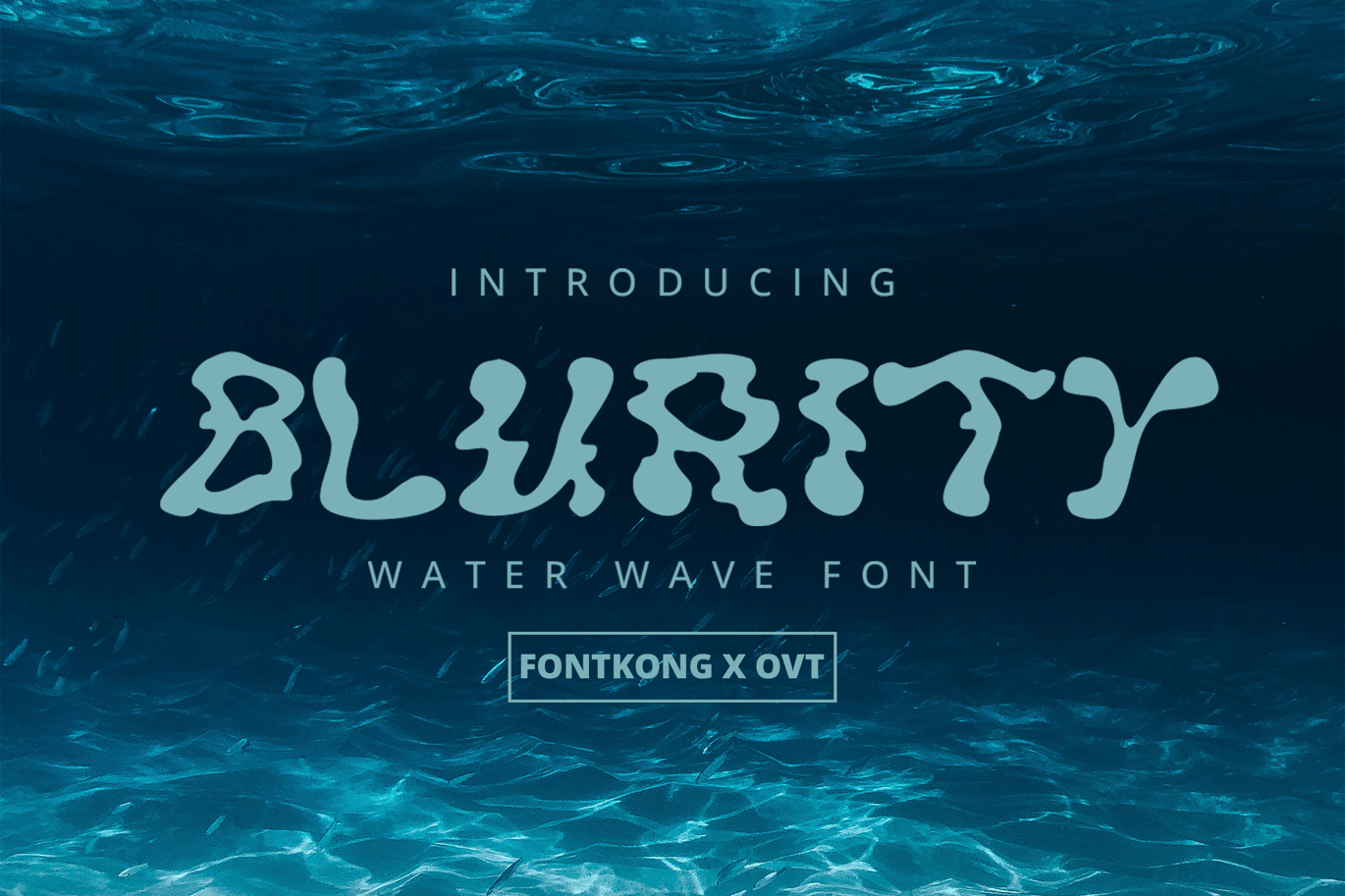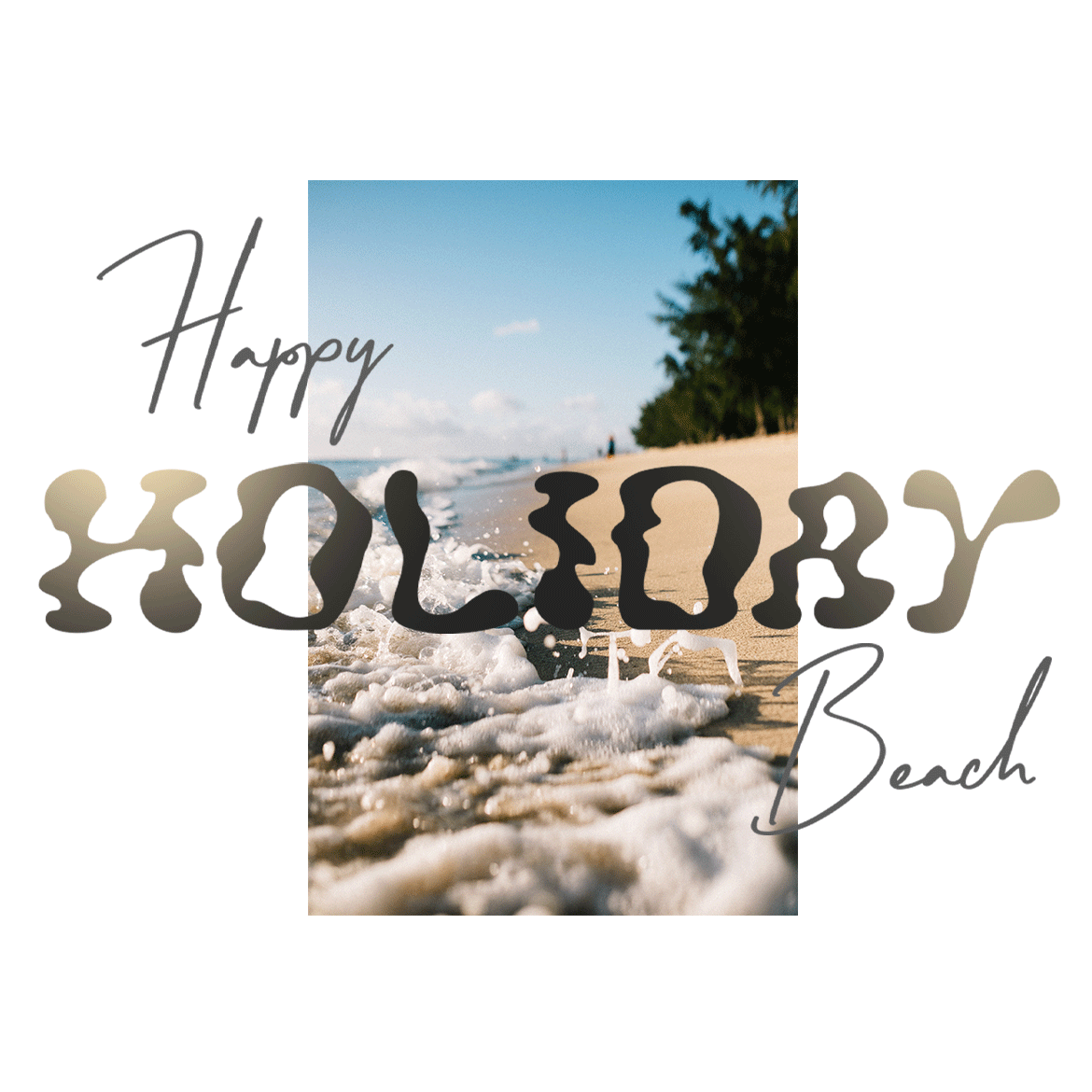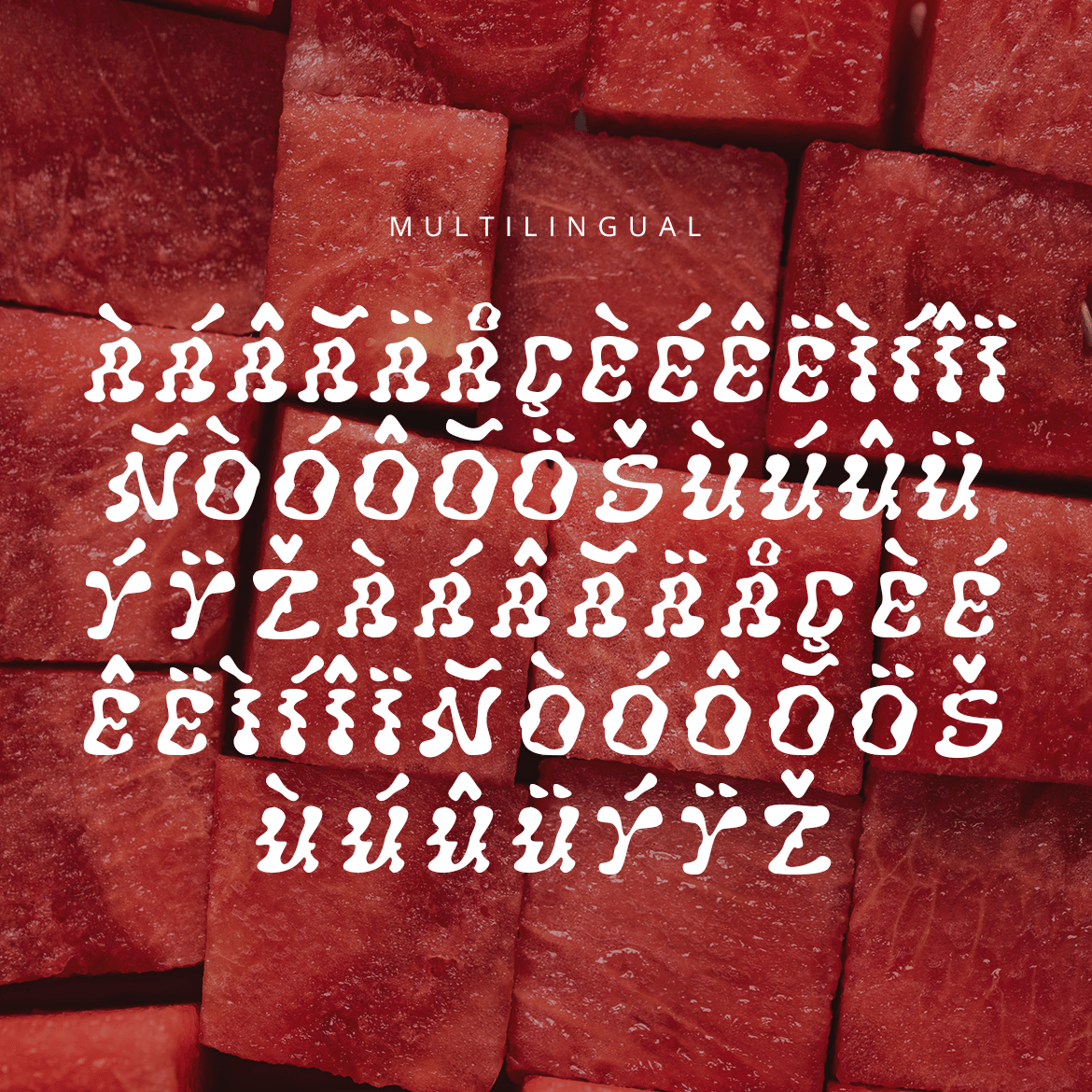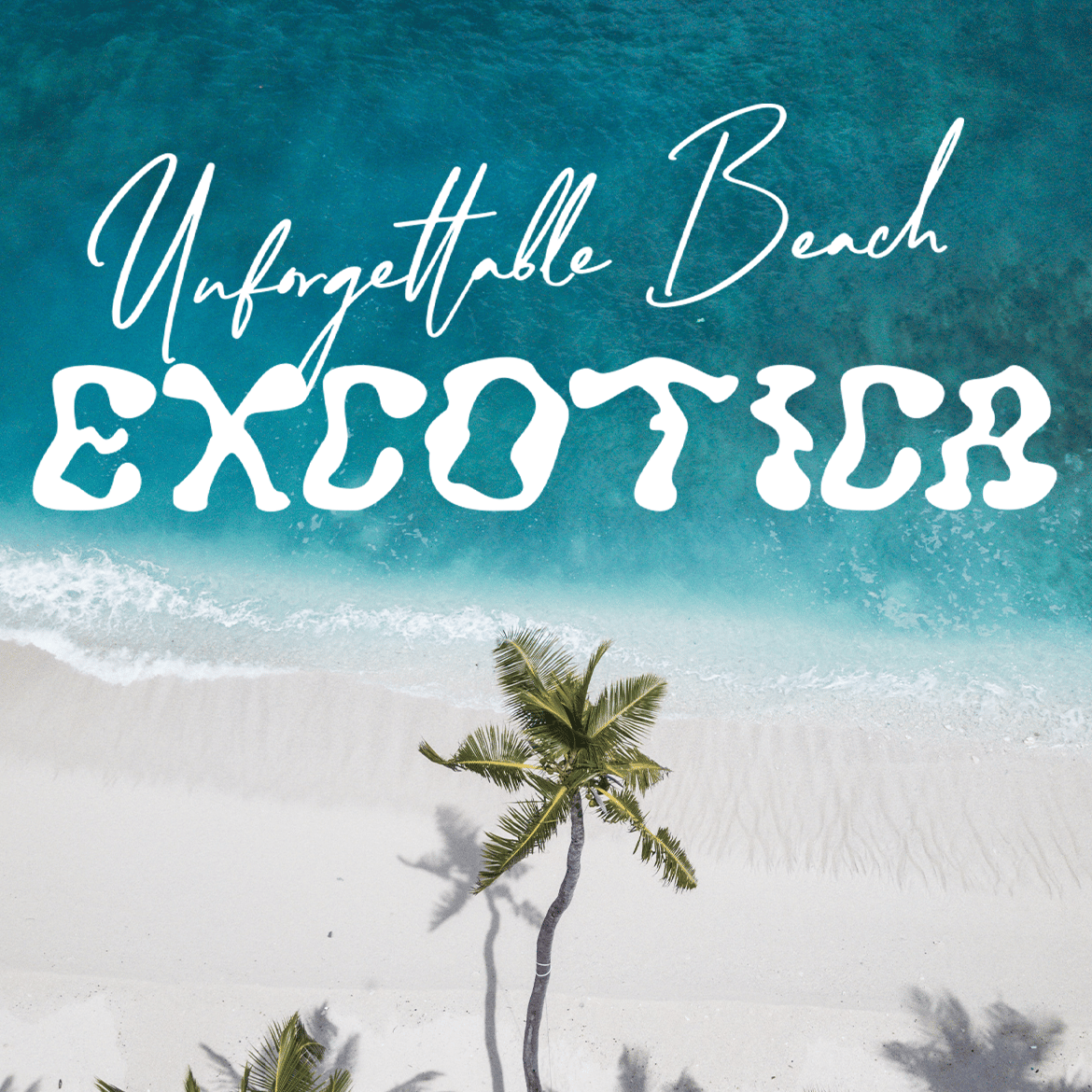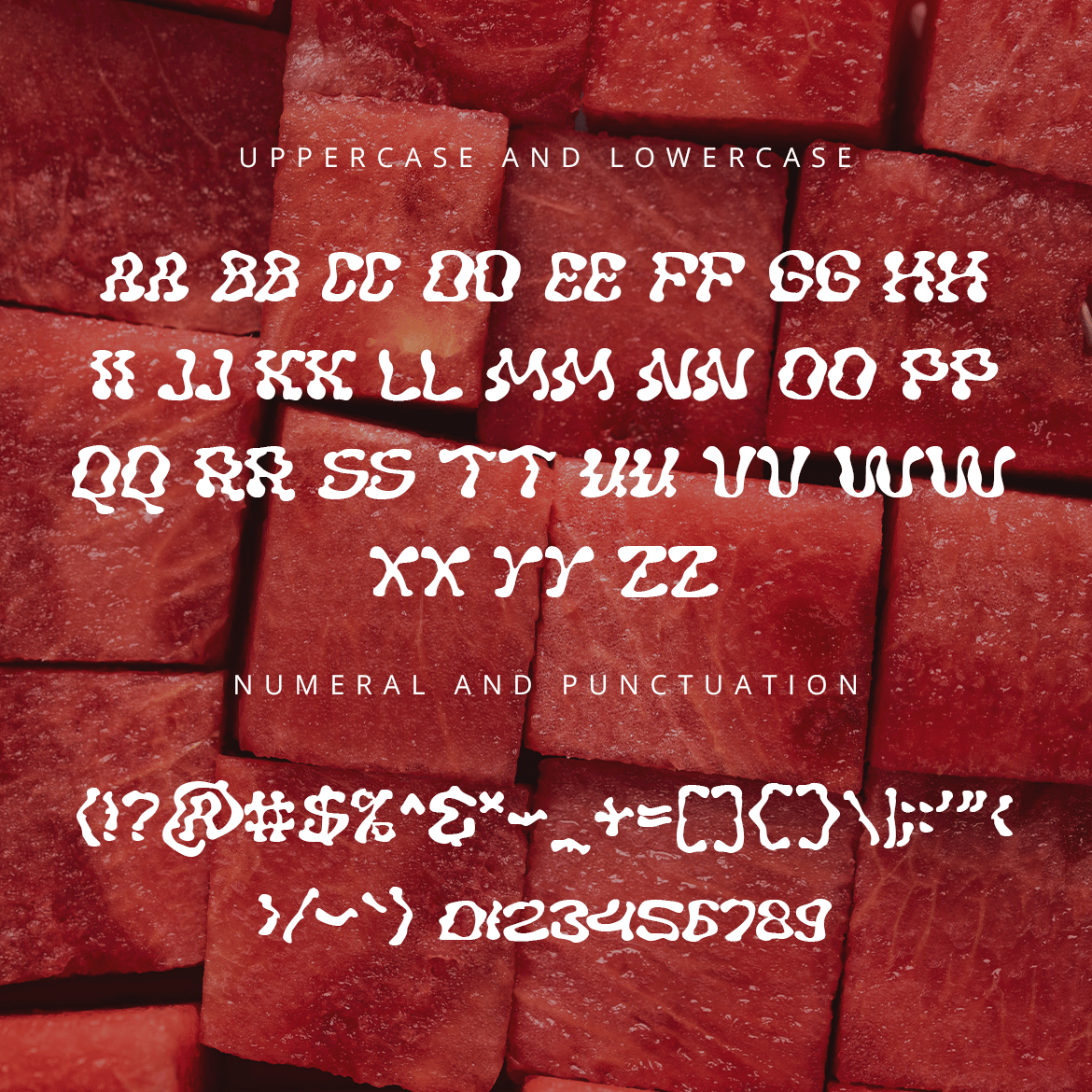
Blurity – A Water Wave Font
Blurity is a unique and captivating water wave font that brings a refreshing and dynamic feel to your design projects. With its fluid and flowing letterforms, Blurity is perfect for beach-themed designs, event posters, creative branding, and summer promotions. This font captures the essence of water’s movement, adding a sense of motion and liveliness to your work.
Designed to mimic the gentle undulations of water waves, Blurity offers a distinctive look that stands out in any context. Its playful and artistic style makes it ideal for headlines and display text, ensuring your message is conveyed with creativity and flair. The font’s versatile nature allows it to be used in various design applications, from digital graphics to printed materials.
Dive into the world of creative typography with Blurity, a font that combines the beauty of water waves with modern design sensibilities. Its unique character and adaptability make it a must-have for designers seeking to create eye-catching and memorable work. Elevate your designs with Blurity and let the waves of creativity flow effortlessly.